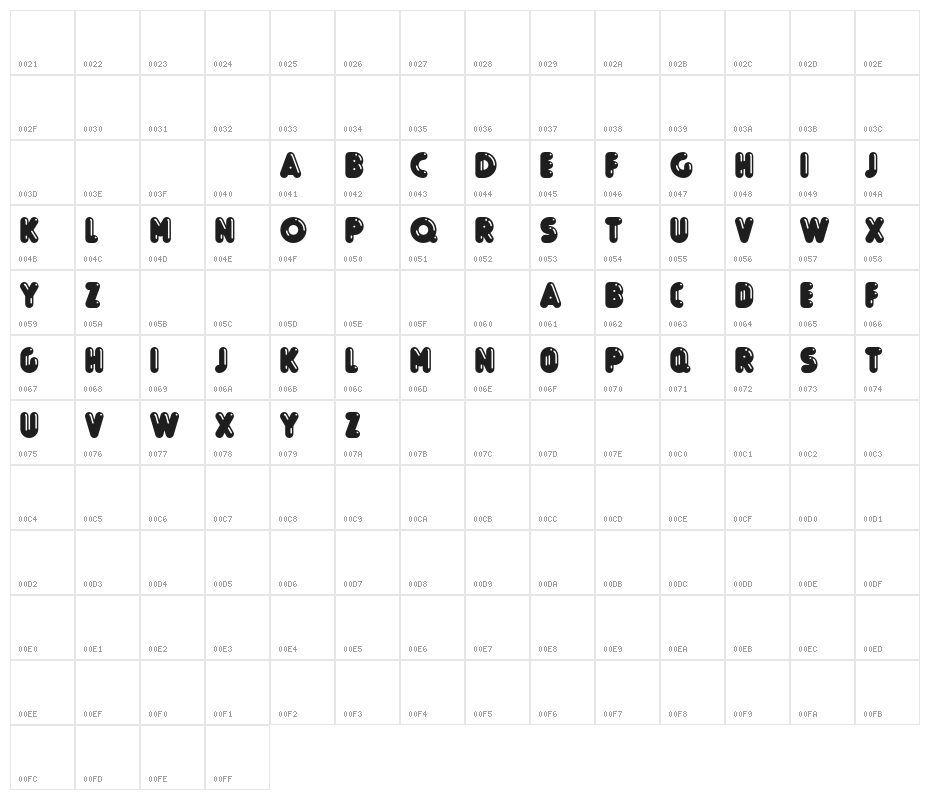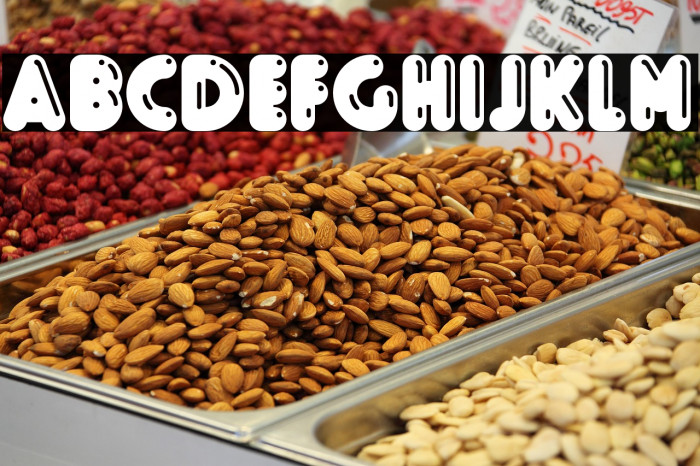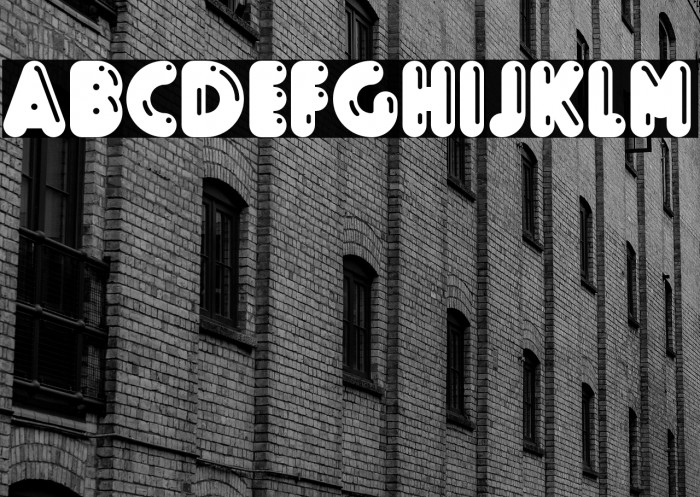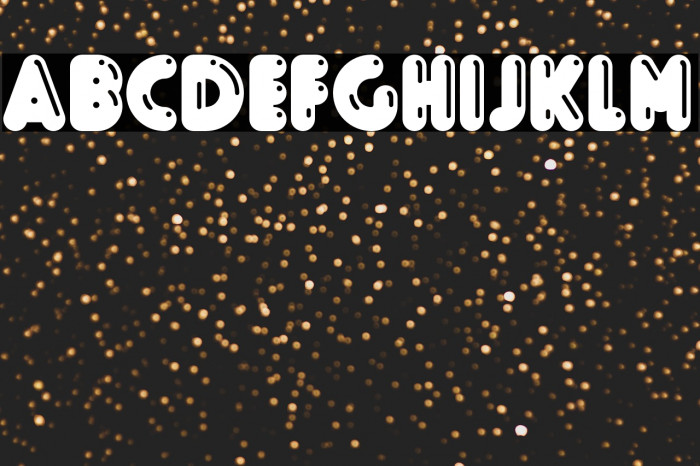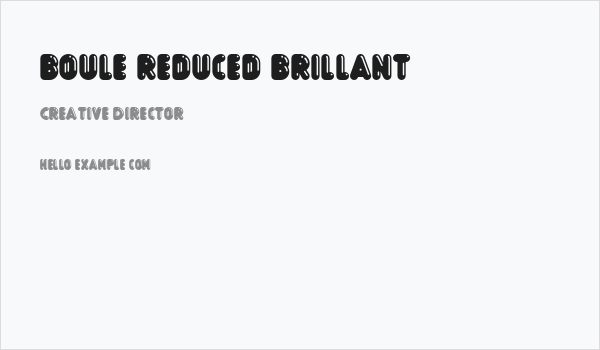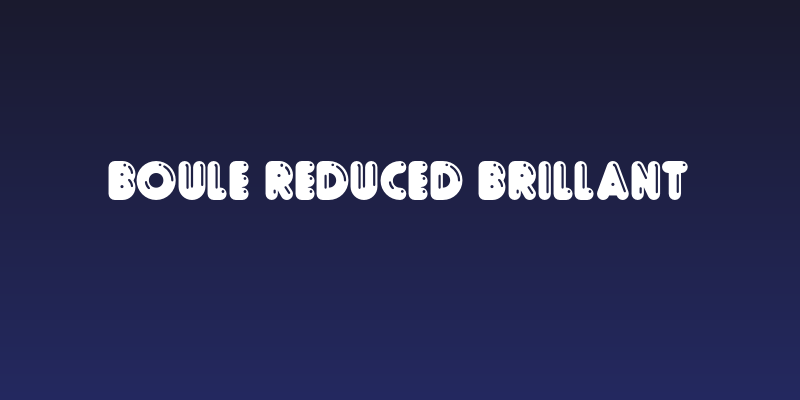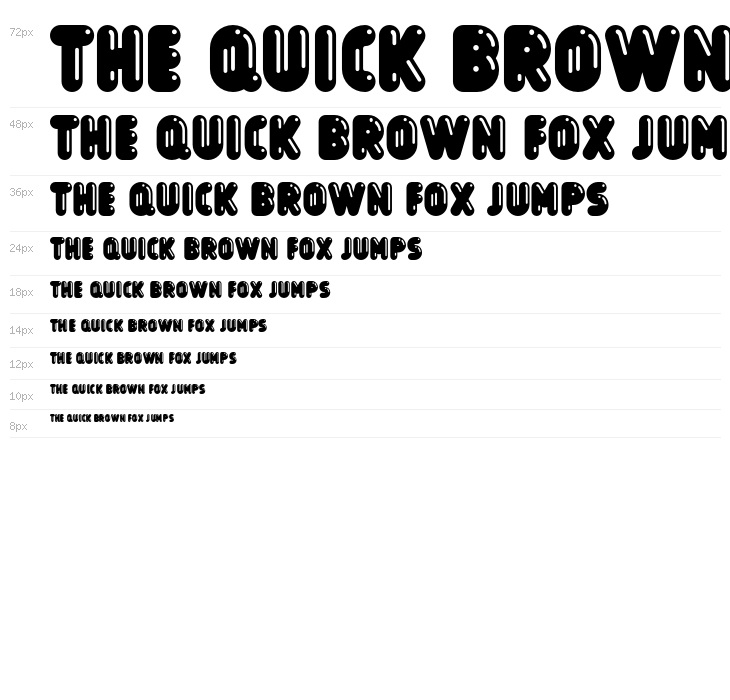
Boule Reduced Brillant Font
Boule Reduced Brillant Description
This font features a bold and playful design with a unique bubbly appearance. Each character is crafted with rounded edges and a consistent thickness, giving it a friendly and approachable look. The letters are adorned with small circular cutouts, adding a whimsical touch to the overall style. This design choice makes the font stand out, making it ideal for eye-catching displays. The uniformity in stroke width ensures readability while maintaining its decorative appeal.